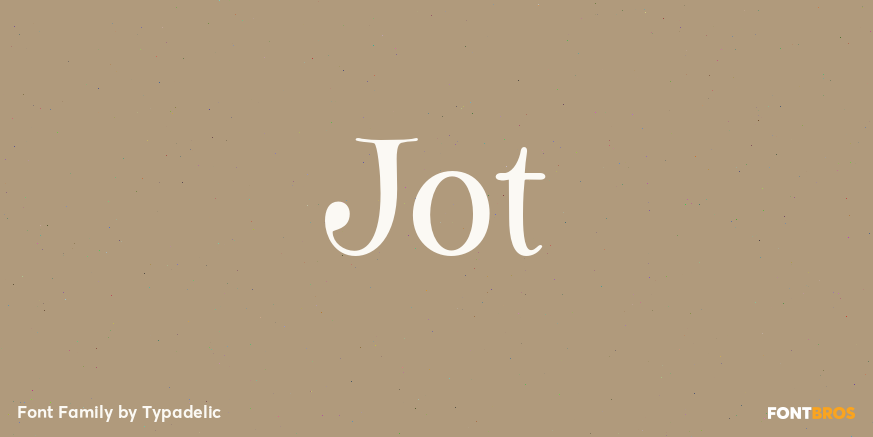
HomeFont BrosHandwrittenJot HandwrittenSerif Jot FacebookXPinterestWhatsApp 1 of 1 About Jot Jot is a playful slab-serif font. This typeface is versatile enough to be used in any type of design work, be it serious or fun.  DOWNLOAD ON FONT BROSThis font is sold and delivered by Font Bros. Font Canyon may earn a commission if you buy through this link. People also explored MENZANINE – STAMP TEXTURED FONT FAMILY Seven Star Font Herey Duo Font Plularius Font Hayken Script Font Couple Dream Font Merry Christmas Font Outline Font Texture Font 228 0 TagsJotJot Font Previous articleBumperNext articleAviano Royale LEAVE A REPLY Cancel reply Comment: Please enter your comment! Name:* Please enter your name here Email:* You have entered an incorrect email address! Please enter your email address here Website: Save my name, email, and website in this browser for the next time I comment. Personal Use Free Talking on Personal Use Free Read more about this font Aldenburg Personal Use Free Read more about this font Monofonto Personal Use Free Read more about this font Heart Memory Personal Use Free Read more about this font BLOG Free Fonts Risk: Why Free Fonts Can Be Dangerous for Designers Free Fonts Risk: Why Free Fonts Can Be Dangerous for Designers Using free fonts is a common practice in web and graphic design. However, the... How to Install and Use Fonts on Windows, macOS, and Web Projects Best Fonts for YouTube Videos: Make Your Thumbnails Stand Out Modern Sans-Serif Fonts That Brands Love in 2025